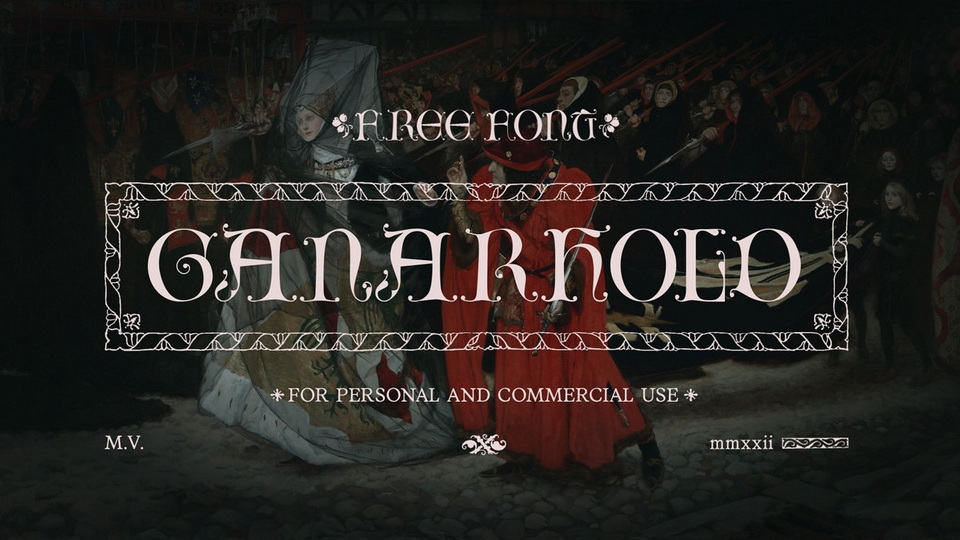
Feb 6, 2025DisplayGanarhold Font Ganarhold is a Lombard style font inspired by Arts and Crafts revival aesthetics. This font is intended for use as initials, monograms, drop caps or wherever fancy letters are desirable. Font DetailsDesigned by: Misha VlasovWebsiteLicense: Free for commercial use Download Ganarhold FontFile size: 17.49 KBCreated: February 16, 2025Updated: February 16, 2025 Download Explore similar fonts Flowserif Font Artistic Writing Font Riverine Progress Font Wedgen Holdeza Font Brindley Houston Font Evermont Font # Decorative# Elegant# Vintage More fonts by Misha VlasovKelsi FontArina FontMephistophjimenez Font